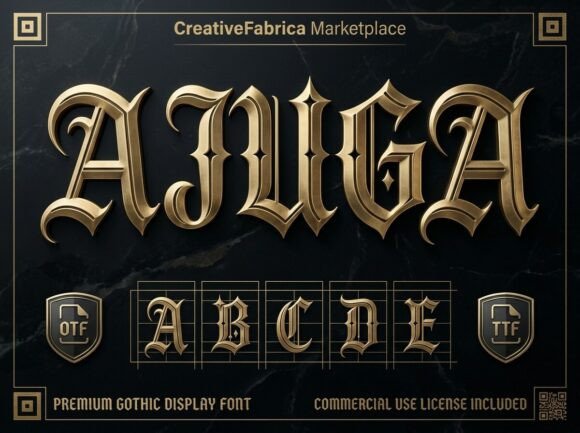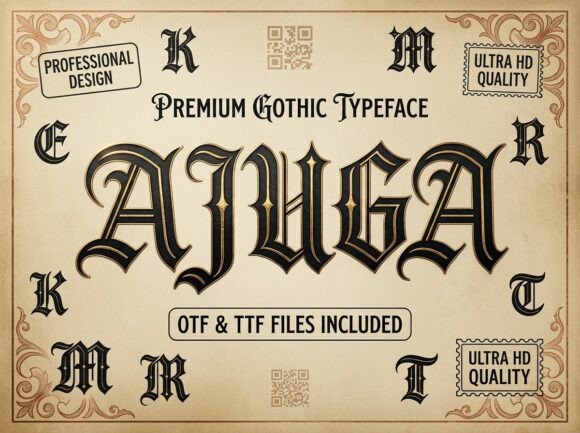
Unleash the Majesty of the Middle Ages with Ajuga Font
Step into a realm of medieval majesty with Ajuga, a breathtaking ornamental Gothic typeface that commands respect and wonder. This font is a masterclass in Blackletter design, featuring sharp, dramatic angles and intricate diamond-cut details that give every letter a chiseled, metallic appearance. Its golden-toned, 3D aesthetic evokes the opulence of ancient illuminated manuscripts and royal decrees.
A Masterclass in Blackletter Design
Ajuga font is a stunning example of Blackletter design, a style that originated in the Middle Ages. Characterized by its dramatic flourishes and intricate details, Blackletter typography was often used in illuminated manuscripts and royal documents. Ajuga takes this classic style and elevates it to new heights, with sharp, angular lines and ornate details that give the font a regal, majestic appearance.
Intricate Details and Metallic Aesthetic
One of the standout features of Ajuga font is its intricate diamond-cut details. These delicate flourishes add a level of sophistication and elegance to the font, giving it a truly regal appearance. The metallic aesthetic of the font is also noteworthy, with a golden-toned color that evokes the opulence of ancient illuminated manuscripts. This 3D effect gives the font a sense of depth and dimensionality, making it perfect for designs that require a sense of luxury and grandeur.
Ajuga font is an incredibly versatile typeface that can be used in a wide range of design applications. Whether you are designing for a dark fantasy epic, a luxury craft brewery, a heavy metal brand, or high-end vintage packaging, Ajuga provides a legendary presence that is as timeless as it is bold. The font’s dramatic, attention-grabbing appearance makes it perfect for designs that require a sense of drama and flair.
Designing for Dark Fantasy and Luxury Brands
Ajuga font is particularly well-suited for designs that require a sense of mystery and luxury. For dark fantasy epics, the font’s dramatic, Gothic aesthetic is perfect for creating a sense of foreboding and intrigue. For luxury brands, the font’s metallic aesthetic and intricate details evoke a sense of high-end quality and sophistication. Whether you are designing a logo, packaging, or marketing materials, Ajuga font is sure to make a lasting impression.
Tips for Using Ajuga Font in Your Designs
Here are a few tips for using Ajuga font in your designs:
- Use Ajuga font as a headline or title font to add a touch of drama and elegance to your design.
- Pair Ajuga font with a simpler font to create visual interest and contrast.
- Experiment with different colors and textures to enhance the metallic aesthetic of the font.
- Consider using Ajuga font in combination with illustrations or graphics to create a truly regal and majestic design.
In conclusion, Ajuga font is a breathtaking ornamental Gothic typeface that is sure to make a lasting impression. With its sharp, dramatic angles and intricate diamond-cut details, this font is perfect for designs that require a sense of luxury, grandeur, and drama. Whether you are designing for a dark fantasy epic, a luxury craft brewery, or high-end vintage packaging, Ajuga font provides a legendary presence that is as timeless as it is bold. So why wait? Download Ajuga font today and unleash the majesty of the Middle Ages in your designs!